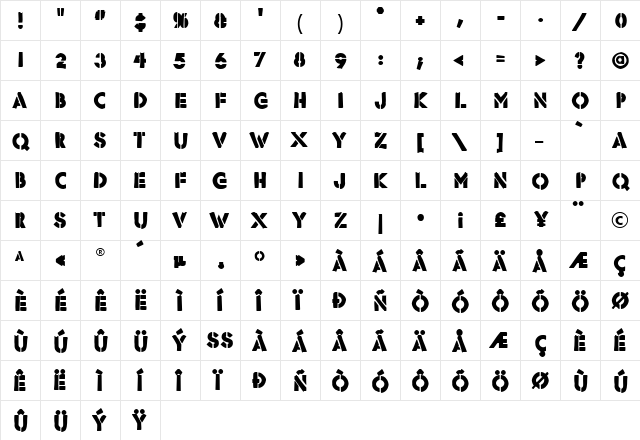
Rafika Regular
Regular · Ray Larabie Ray Larabie ·
Foundry Ray Larabie
FoundryRay Larabie
DesignerRay Larabie
Design Context for Rafika Typeface
Rafika is a composed and adaptable typeface that performs quietly and consistently across a wide range of design contexts.